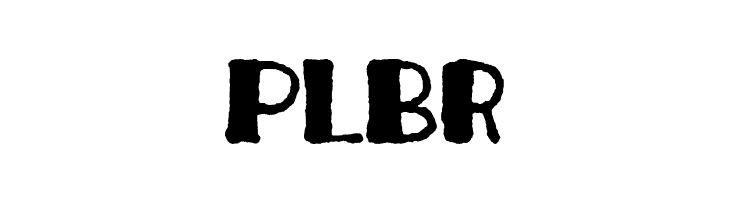
Ayosmonika Bold Font
- Font: Ayosmonika Bold
( Fonts by Cumberland Fontworks - http://www222.pair.com/sjohn/fonts.htm - S. John Ross )
A bold, freehand-style font with dynamic strokes and artistic flair.